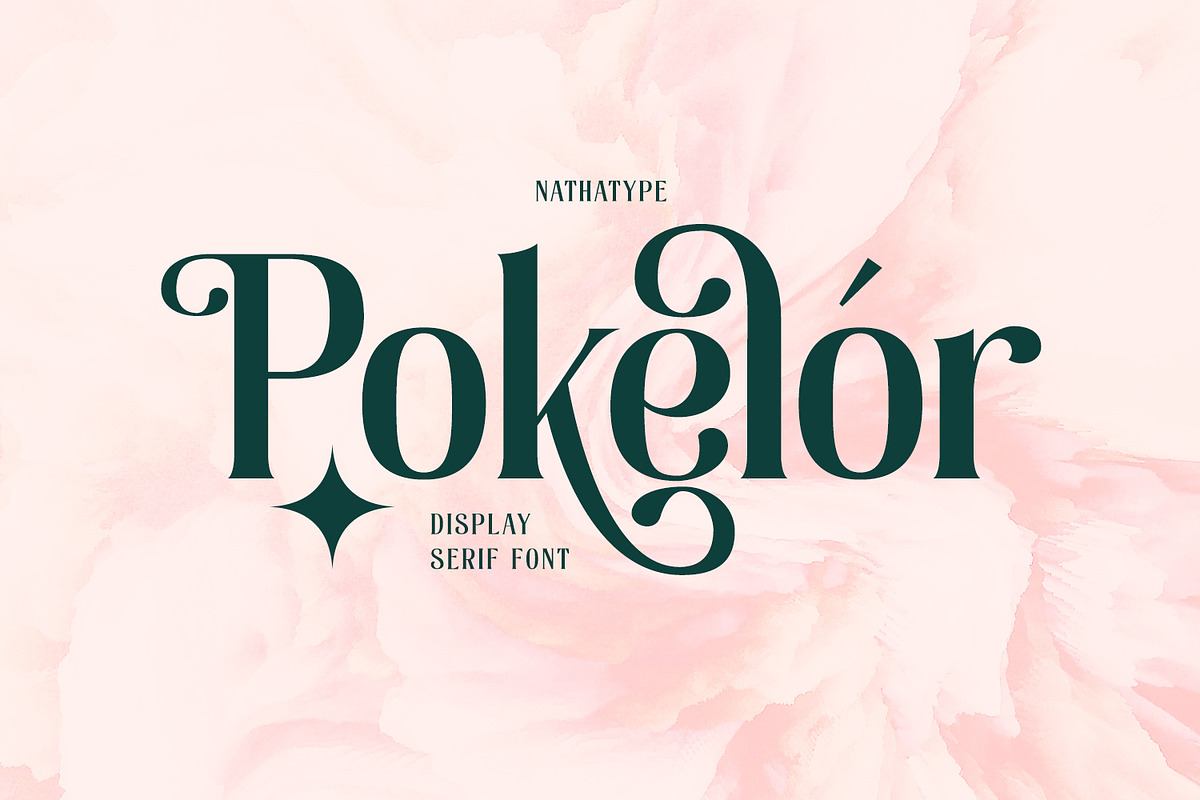
Pokelor Font Free Download is a playful and charming typeface perfect for creative projects, branding, and fun designs. With its whimsical curves and friendly style, Pokelor brings a unique personality to any layout, whether it’s a children’s book, a game title, or a quirky logo. This font is carefully crafted to ensure readability while maintaining its distinct flair, making it a go-to choice for designers seeking something fresh and eye-catching.
Ideal for both print and digital formats, Pokelor Font enhances visual storytelling with its vibrant and youthful appeal. Whether you're working on invitations, posters, or social media content, this font adds a delightful touch.